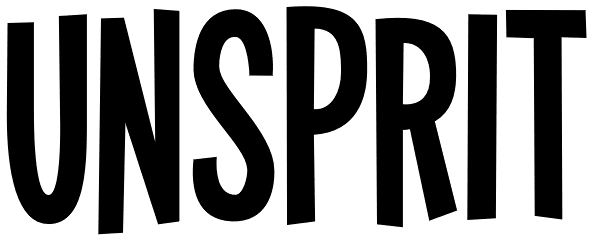
Unsprit
Unsprit jumps up and down, use the ligatures and the letters combine in all sorts of funky ways! You will need to use OpenType supporting applications to use the ligatures.
Unsprit Font